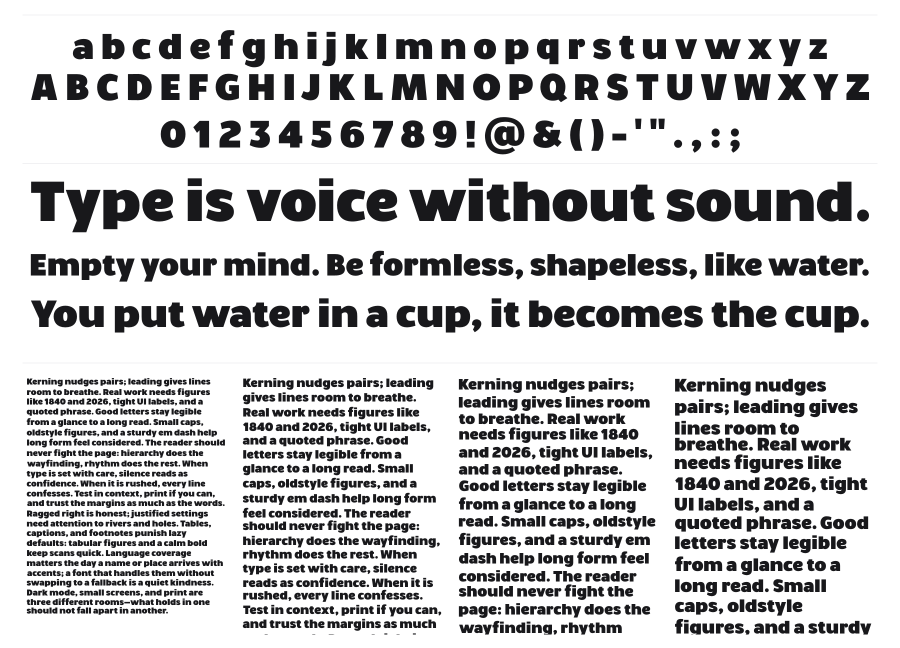
Walrus
by Studio Dot by dot · Website
Walrus is a big, heavy geometric display face from Studio Dot by dot, with wide proportions and dense black letterforms that take up serious space. Everything about it feels sturdy and grounded, built to anchor headlines, posters, and branding where sheer visual mass is the point. The modern, stripped-back construction keeps it from feeling clunky despite its weight.